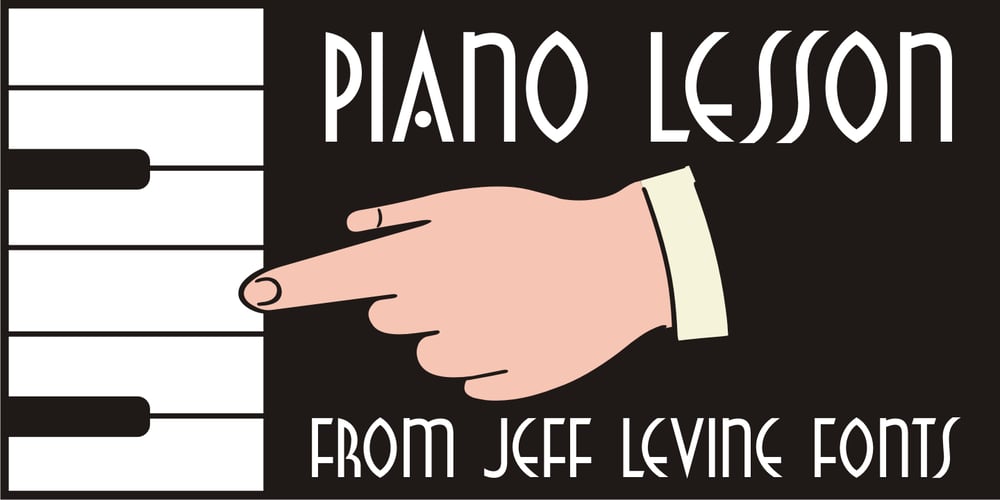
Piano Lesson JNL
Piano Lesson JNL font
Piano Lesson JNL Font Family was designed by Jeff Levine and published by Jeff Levine. Piano Lesson JNL contains 1 styles and family package options. Piano Lesson JNL comes from the hand lettered title on a 1940s-era piece of sheet music called “The Adult Explorer at the Piano”. The mix of both regular and irregular character shapes makes for an interesting font that’s Art Deco influenced, yet has its own individual personality.